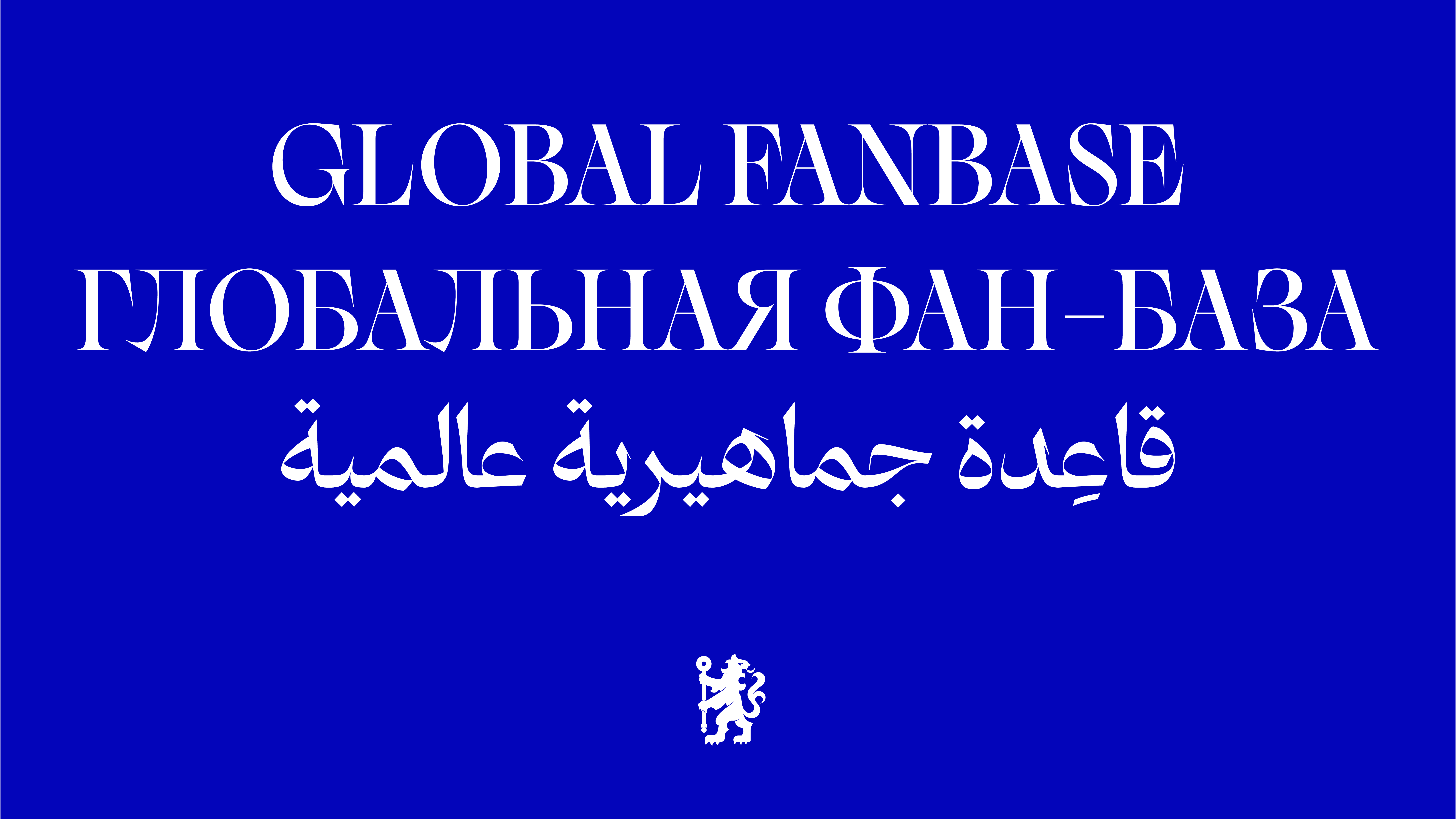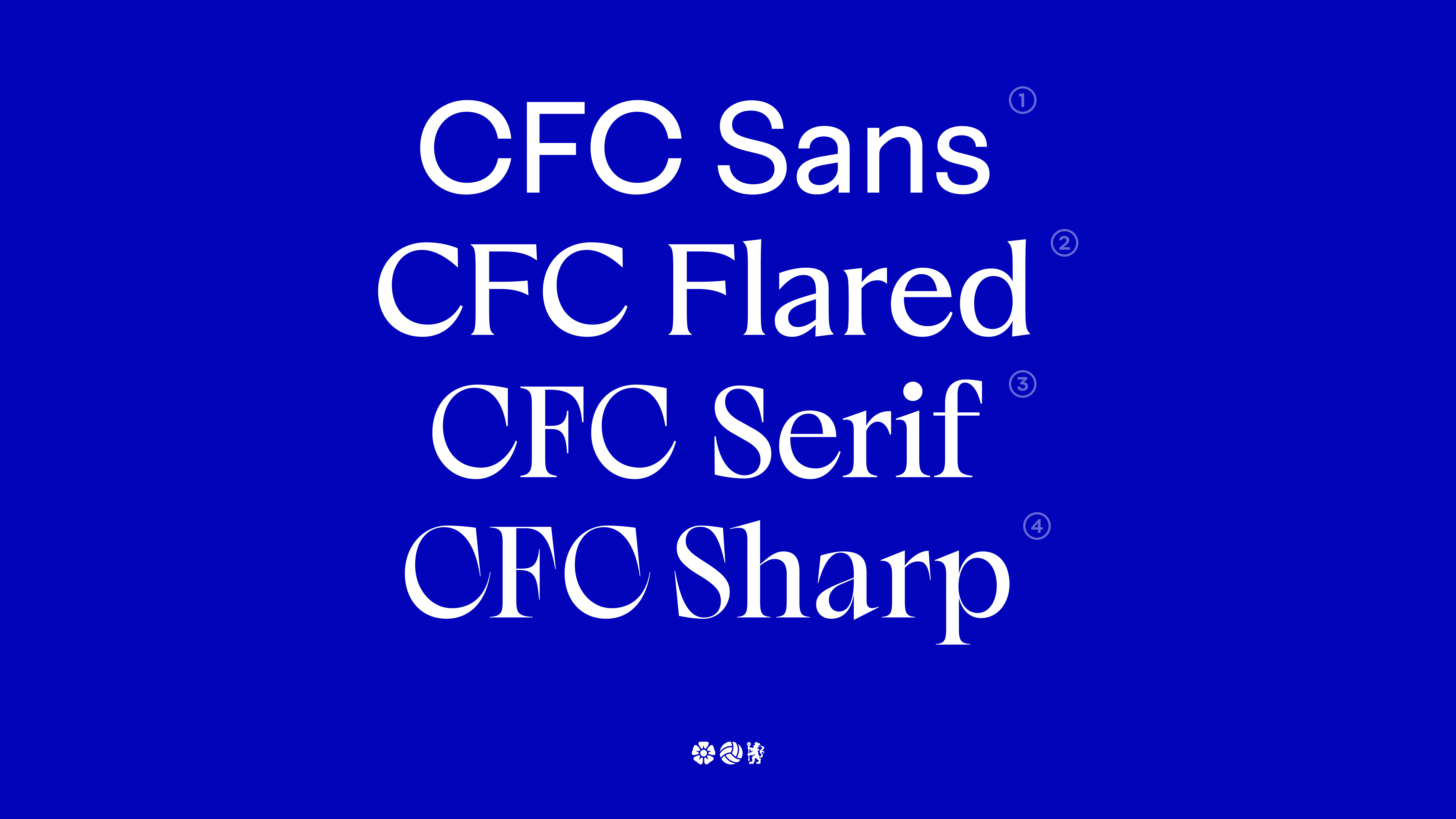
Based just down from the Kings Road in Fulham, Chelsea FC have a reputation as one of football’s most stylish clubs. As a brand, they transcend their sport, evoking a certain cultural sophistication, cosmopolitan outlook and confident sense of fashion. A symbol of London’s style, on and off the pitch.
Harnessing this heritage and ethos, Chelsea FC felt the time was right to move away from being a mere football brand, to something bigger and more aspirational. They wanted a new look and feel that captures a wider sense of cultural engagement and broadcasts the essence of west London to the world.
We were briefed by creative studio Uncommon to design a suite of four new custom fonts suitable for a broad range of audiences and media. Something that felt different from any other football brand. More sensitive, more delicate, more stylish, and more Chelsea.
Most football typography is predictable and safe, like always playing 4-4-2. It’s shouty, direct and unsubtle. And for the most part, all looks the same. We were asked for something daring. Something different.
The club crest, featuring the rampant blue lion regardant from the coat of arms of the Metropolitan Borough of Chelsea, was our first port of call. The curves and sharp edges of the familiar leonine emblem were a way of giving Chelsea teeth and claws, and a voice that comes from within. It’s audacious, sharp, elongated yet stylish, and unmistakably Chelsea. No other club could wear this.
Four fonts in multiple weights offer a range of communication options. These run from the extremely sharp and exaggerated CFC Sharp display font at one end. Right through to CFC Sans, which is a perfectly functional, yet slightly quirky, text face at the other. It’s like a family of typefaces that’s able to retract its claws as necessary.
Features taken directly from the lion include angular shapes, claw-like serifs and sweeping curves, inspired by the lion’s tail. CFC Sharp is very high contrast, with all the graphic elements dialled up to the max and is best used BIG. CFC Serif tones things down a little, conveying similar bite and emotions with more legibility. CFC Flared is the box-to-box midfielder, riding the line between a serif and a sans, suitable from everything from lock-ups to headlines, to sub-headings, to body copy.
It's a brave typographic departure, but one that Chelsea FC can pull off with trademark style.